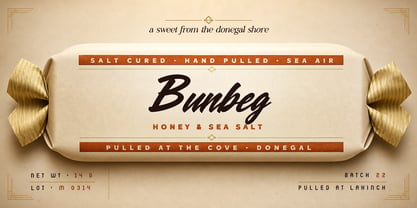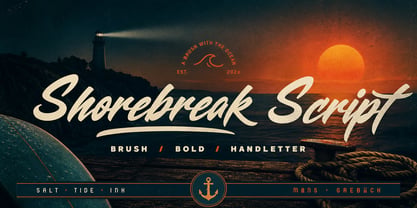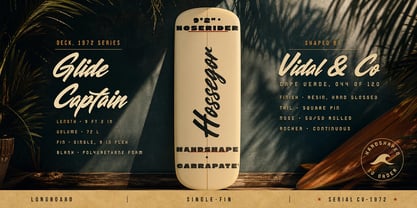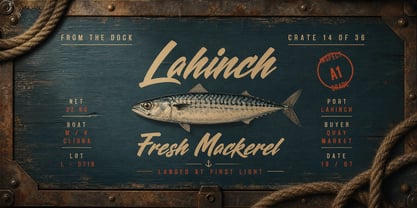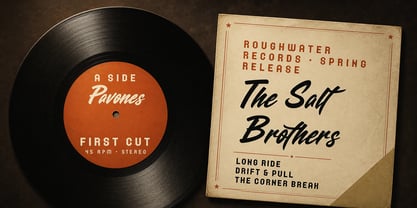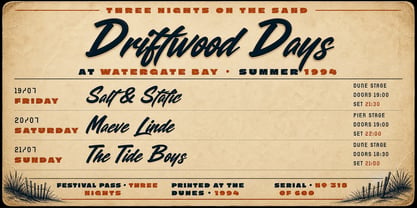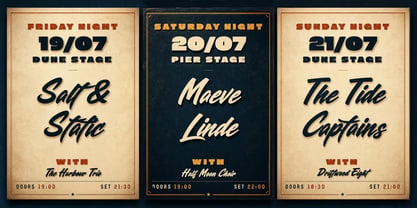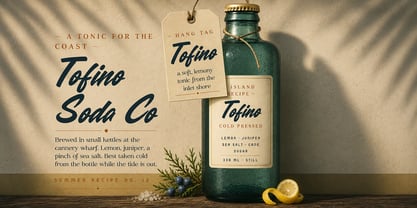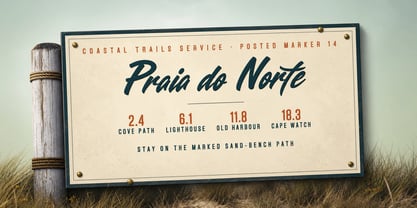
Shorebreak Script
by Mans Greback
Shorebreak Script is a bold brush handletter built on confident, energetic strokes and a slight right slant.
The capitals carry the weight of a thick-loaded paintbrush, while the lowercase joins together in a steady flow that keeps the rhythm of fast handwriting. The strokes feel direct rather than ornate — no extra flourishes, just the swing and grit of marker work done at speed. It reads loudest at large sizes, where the character of each stroke can breathe.
The lettering belongs on a hand-painted longboard, a sun-bleached enamel sign at the end of a coastal road, the spine of a 7-inch sleeve, or the side of a wooden crate set down on a wharf at first light.
The font is built with advanced functionality and guaranteed top-notch quality, containing stylistic and contextual alternates, ligatures and more automatic and manual features; all to give you full control and customizability.
It has extensive lingual support, covering all Latin-based languages, from North Europa to South Africa, from America to South-East Asia. It contains all characters and symbols you'll ever need, including all punctuation and numbers.